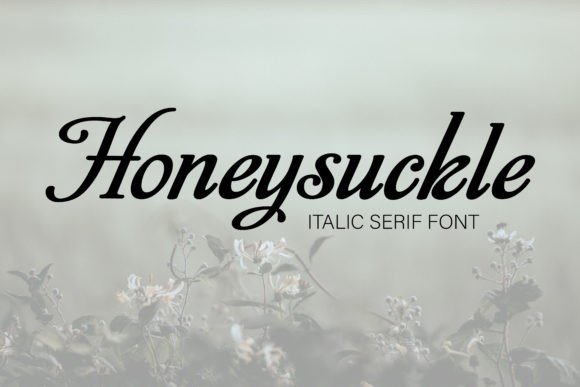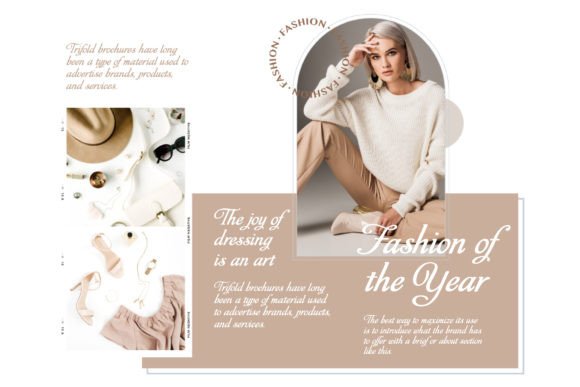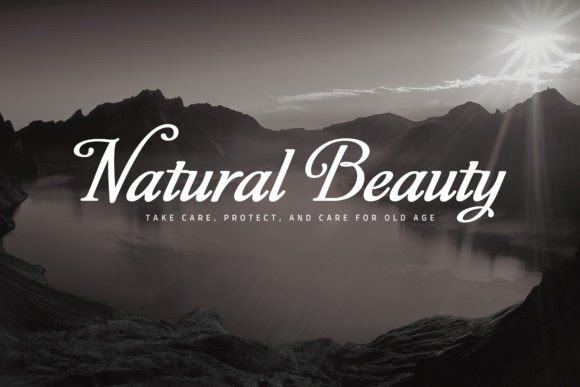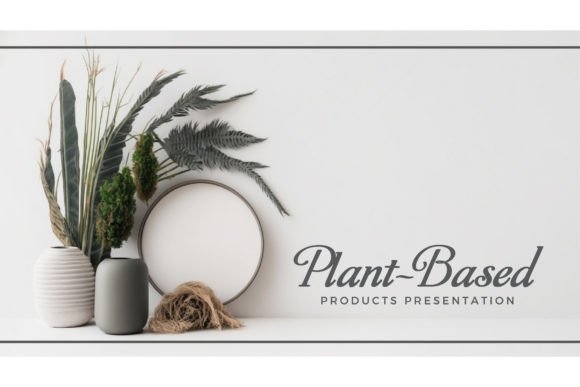
Honeysuckle Font: Elegant Serif Typography for Wedding & Branding Designs
About the Honeysuckle Font
Introducing the Honeysuckle Font, a beautifully crafted typeface designed to elevate your creative projects. Introducing our latest font design, a sophisticated blend of elegance and professionalism. This italic font with serifs offers a cursive-inspired feel without the typical connected script, striking the perfect balance between traditional charm and modern design. Ideal for corporate branding, elegant invitations, and refined wedding designs, this font exudes a timeless sophistication that elevates any project. With its graceful curves and distinct serifs, this font adds a touch of class and sophistication, making it a versatile choice for a variety of applications.
Honeysuckle Font Usage Examples
Honeysuckle Font Example